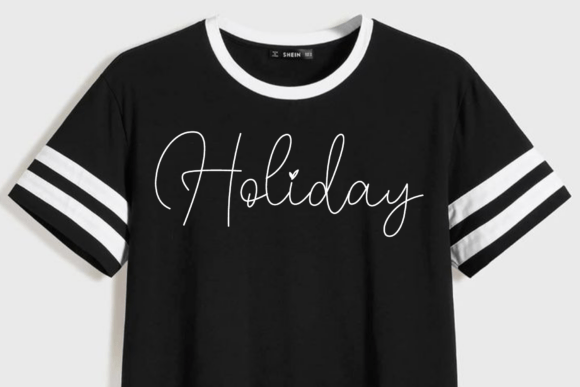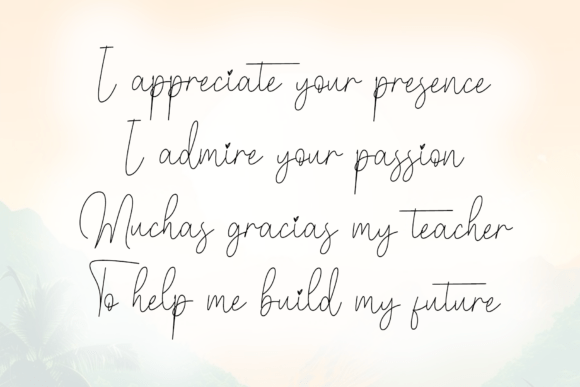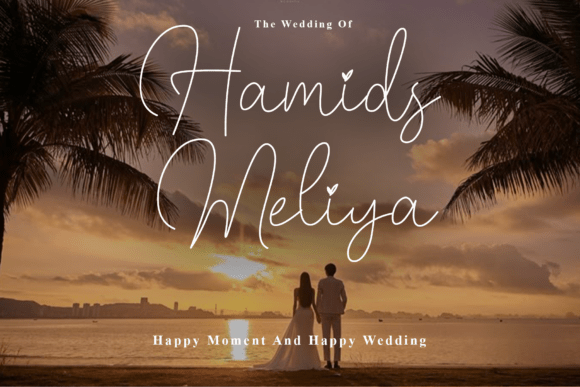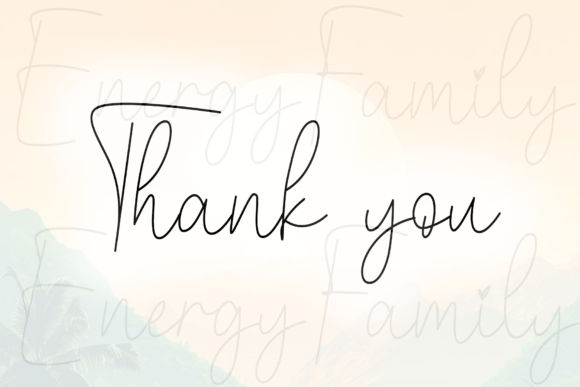
Introducing Energy Family Font: Elevate Your Designs with Modern Beauty
In the world of typography, fonts play a crucial role in conveying the tone and aesthetic of a brand or design. For those seeking to add a touch of modern luxury to their layouts, the Energy Family Font is an excellent choice. This stunning monolinear script font embodies the concept of “quiet luxury,” making it perfect for high-end lifestyle branding, personal branding, and elegant designs.
What Makes Energy Family Font Special?
The Energy Family Font boasts ultra-thin, airy strokes that exude refinement and sophistication. One of its distinctive features is the playful heart detail over the “i,” which adds a touch of whimsy and personality to the font. The tall ascenders and breezy connections create a sense of movement and lightness, giving the font a dynamic feel. This unique combination of characteristics makes Energy Family Font a standout choice for designers and crafters looking to elevate their work.
Best Use Cases for Energy Family Font
Due to its elegant and refined nature, the Energy Family Font is best suited for various high-end applications. Some of the most popular use cases include:
- Personal branding: Establish a luxurious and sophisticated image with Energy Family Font, perfect for entrepreneurs, influencers, and creatives.
- Lifestyle photography watermarks: Add a touch of elegance to your photos with a subtle yet distinctive watermark.
- Luxury skincare packaging: Elevate your brand’s visual identity with a font that exudes high-end quality and sophistication.
- Minimalist wedding stationery: Create beautiful, understated wedding invitations, programs, and other stationery with Energy Family Font.
Why Choose Energy Family Font?
With the Energy Family Font, you can bring a sense of modern beauty to your designs. Its monolinear script style ensures that your text remains clear and legible, even at smaller sizes. The font’s versatility allows it to be used across various mediums, from digital platforms to print materials.
Moreover, Energy Family Font is designed to be highly adaptable, making it suitable for a wide range of design applications. Whether you’re working on a luxury brand’s visual identity or creating elegant stationery, this font is sure to impress.
Tips for Using Energy Family Font Effectively
To get the most out of Energy Family Font, consider the following tips:
- Pair with contrasting fonts: Combine Energy Family Font with a bold, contrasting font to create visual interest and hierarchy.
- Use it sparingly: Due to its luxurious nature, Energy Family Font works best when used sparingly. Use it for headings, titles, or key phrases to create emphasis.
- Experiment with colors: Energy Family Font looks stunning in metallic colors, pastels, or bold hues. Experiment with different colors to find the perfect match for your design.
The Energy Family Font is a versatile and elegant monolinear script font that embodies the concept of “quiet luxury.” Its unique features, such as ultra-thin strokes and a playful heart detail, make it perfect for high-end lifestyle branding, personal branding, and elegant designs. By incorporating Energy Family Font into your design projects, you can add a touch of modern beauty and sophistication, elevating your work to new heights.